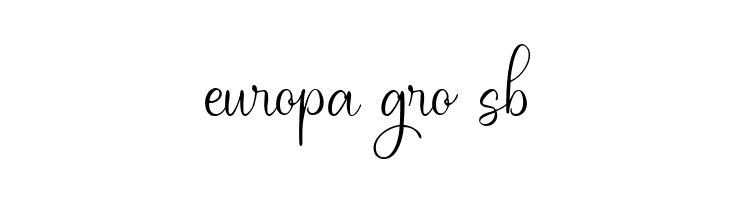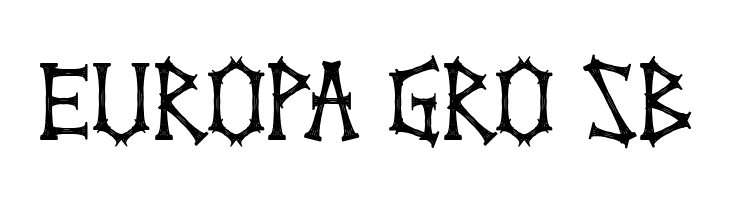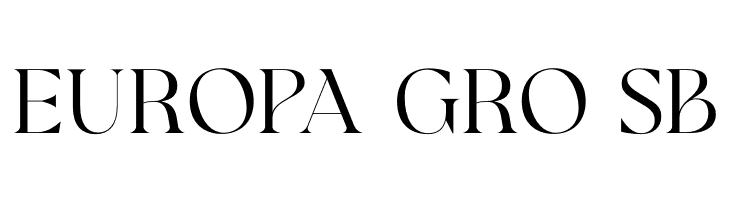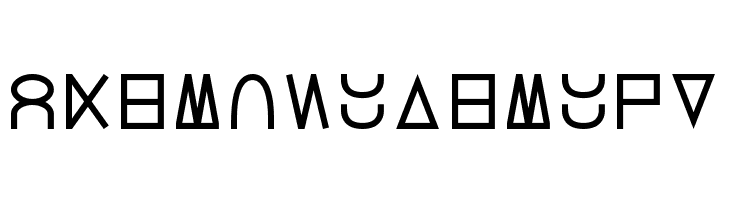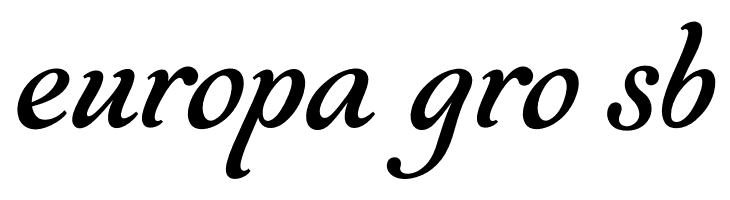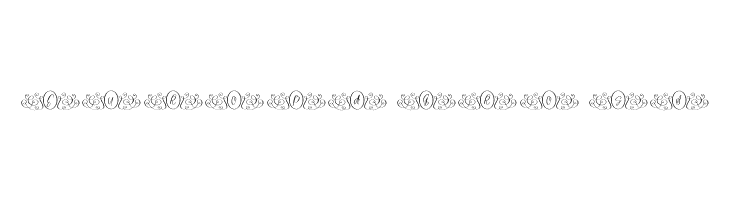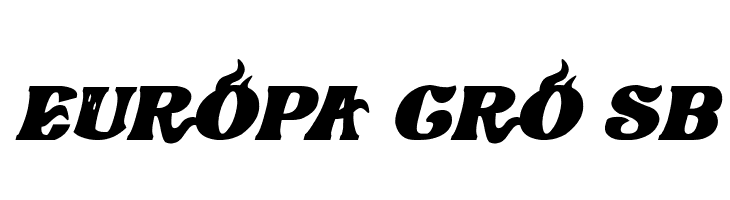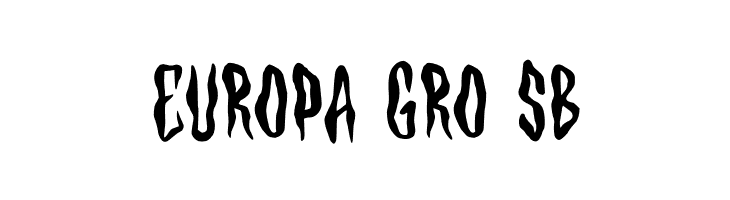
An elegant and ornate font with intricate flourishes, perfect for formal and luxurious designs.
An elegant script font with intricate swirls and flourishes, perfect for luxurious and refined projects.
A bold, gothic-inspired font with sharp, angular lines and a dark, mysterious style.
A high-contrast, elegant font with dramatic flourishes and refined style.
An elegant script font with flowing, cursive letters and refined flourishes.
A cryptic, geometric font with a mysterious, cipher-like appearance.
An elegant script font with ornate flourishes and a luxurious feel.
An ornate and decorative font with intricate flourishes, ideal for luxurious designs.
A bold, italicized font with a mysterious, Lovecraftian horror aesthetic.
A bold, irregular font with a mysterious, hand-drawn appearance.